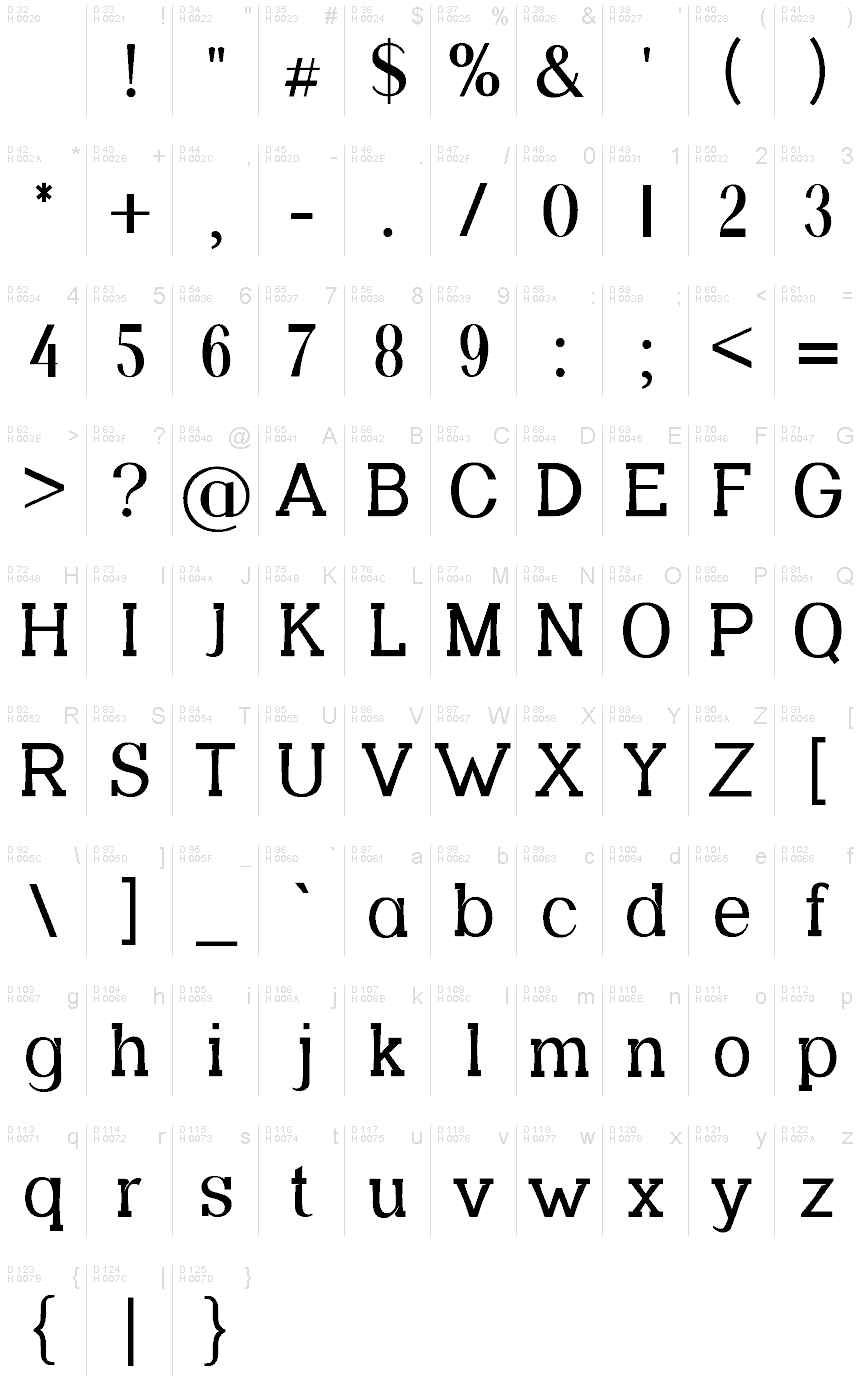
methadone
Methadone font by UI Creative is a traditional serif with a gothic influence. Its strong structure gives an impactful, professional appearance that works well for the headlines. Users can achieve an artistic look through this font given its historical resonance and feel.
Graphic design, posters, announcements, logo design, flyers, invitations cards, advertising campaigns and slogans are examples of Methadone’s use cases. The font is free and can also be applied in social media covers on Instagram or Facebook.